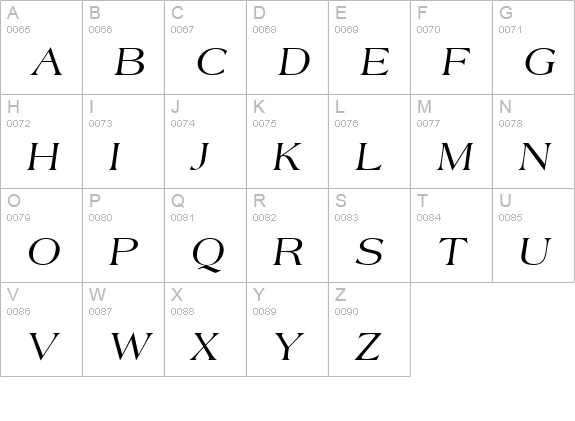
URWAmericanaT Italic Font Details
URWAmericanaT Italic is a distinctive, italic variant in the URWAmericanaT typeface family \xE2\x80\x94 well suited to design and typography projects.
URWAmericanaT Italic is a stunning font that effortlessly blends classic elegance with a modern twist. Its sleek and refined design captures the essence of American heritage, making it the perfect choice for any project that requires a touch of Americana charm. The italicized letterforms add a stylish flair, lending a sense of sophistication to any text. With its smooth and flowing curves, URWAmericanaT Italic exudes a sense of grace and versatility. Whether used for logos, headlines, or body text, this font commands attention and leaves a lasting impression. The italicized slant adds a dynamic energy, making each word appear more vibrant and engaging. What sets URWAmericanaT Italic apart is not only its striking aesthetics but also its accessibility. This font is available for free download at FontsMarket.com, making it easily accessible to designers, creatives, and anyone in need of a high-quality font without the burden of cost. Its availability ensures that everyone can enjoy the beauty and versatility of URWAmericanaT Italic, regardless of their budget. URWAmericanaT Italic is a true gem in the world of typography, effortlessly capturing the spirit of Americana and offering a unique blend of elegance and modernity. Download it for free today at FontsMarket.com and elevate your designs with this timeless font.